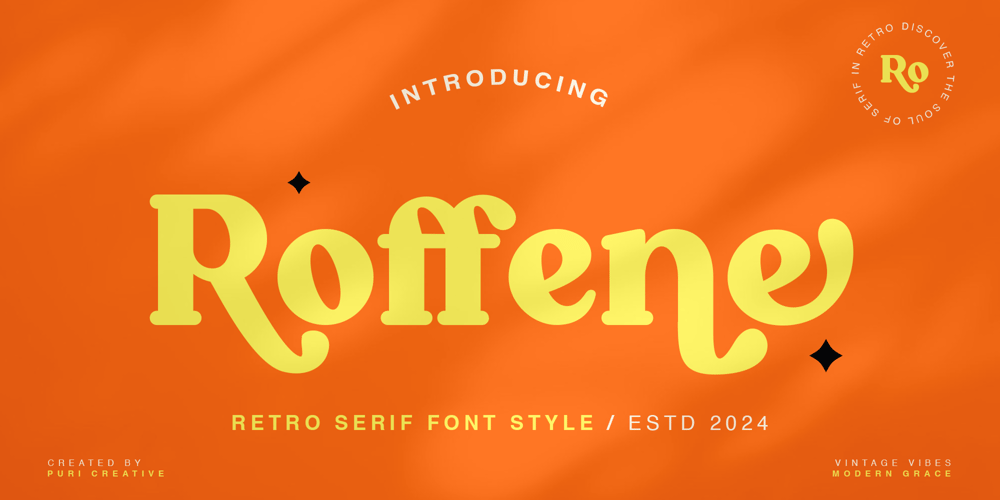
Roffene Font Family was designed by Bina Cipta Wicaksana Hg and published by Puri Creative. Roffene contains 1 styles and family package options. “Roffene” is a bold display font specialized for eye-catching designs. It has a cool and playful look that can be used for logos, branding, invitations, stationery, wedding designs, social media posts, and so much more. Featuring the perfect amount of trendiness, this font will make your designs come to life.This font is PUA encoded, which means you can access all of the glyphs with ease!Features:- Uppercase- Lowercase- Number and punctuation- Alternate- Ligature- Multilingual Support- 200+ GlyhpsThank You for your purchase, Enjoy the font!